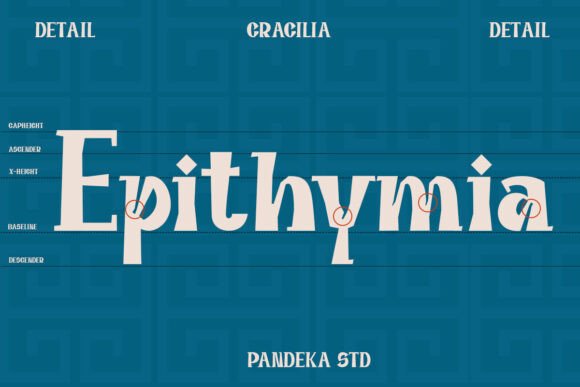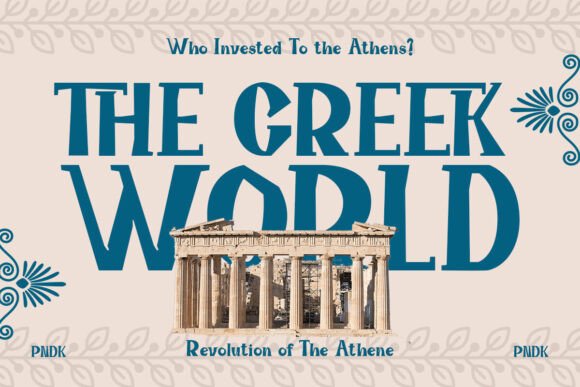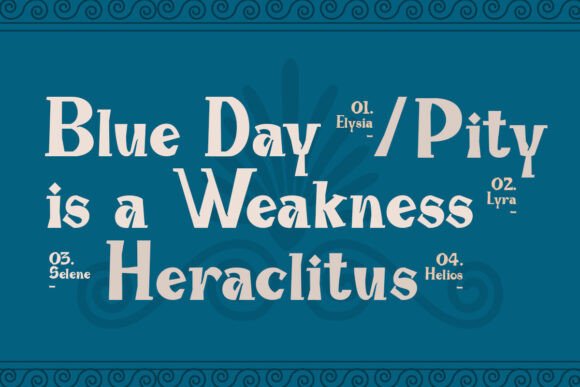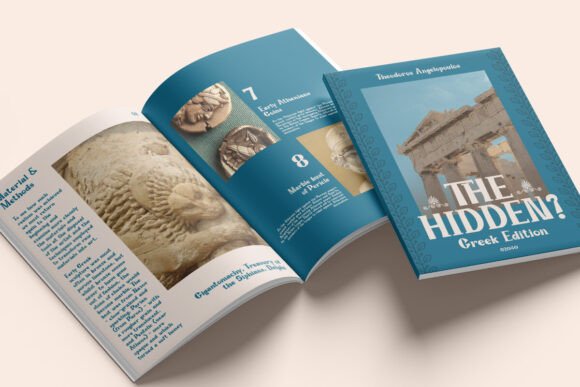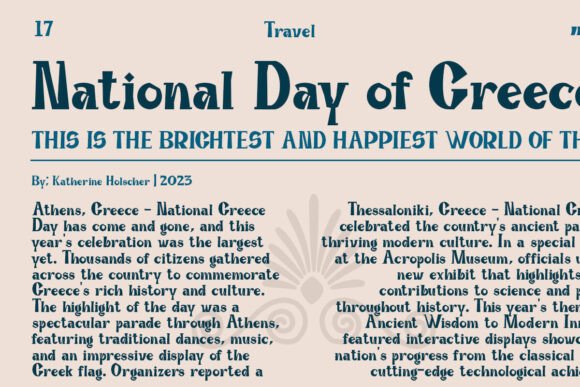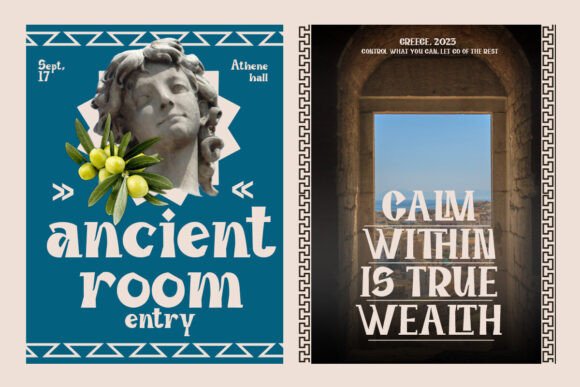
Introducing Gragilia – Ancient Greek Font Inspired by Timeless History
Are you a designer, craftsperson, or enthusiast looking for a font that embodies the essence of Ancient Greek culture? Look no further than Gragilia, a stunning typeface inspired by the grandeur and elegance of a bygone era. In this article, we’ll explore the world of Gragilia, an Ancient Greek font that brings a classic yet modern touch to your designs.
The Inspiration Behind Gragilia
Gragilia’s design is rooted in the rich history of Ancient Greece, a civilization renowned for its remarkable achievements in mythology, philosophy, art, and architecture. The font’s creator sought to capture the spirit of this timeless era, distilling its essence into a unique and captivating typeface. By studying ancient inscriptions, the designer aimed to recreate the elegance and strength that defined Ancient Greek culture.
Key Features of Gragilia Font
Gragilia boasts a single style, Regular, which offers a perfect balance of precision and character. This versatile font is suitable for a wide range of design projects, including:
- Book covers: Add a touch of classic sophistication to your book designs with Gragilia’s bold and timeless letterforms.
- Branding and logos: Create memorable and impactful logos that evoke the grandeur of Ancient Greece.
- Historical-themed designs: Bring the past to life with Gragilia’s authentic and evocative font, perfect for designs that require an air of antiquity.
What Makes Gragilia Stand Out
Gragilia’s unique blend of classic and modern elements sets it apart from other fonts. Its letterforms are meticulously crafted to evoke the feeling of ancient stone inscriptions, while still maintaining a clean and contemporary aesthetic. This font is ideal for designers seeking to:
- Create designs that honor the stories of the past while showcasing modern style.
- Add a touch of sophistication and elegance to their work.
- Develop distinctive and memorable brand identities.
Design and Craftsmanship
Gragilia’s design process involved meticulous research and attention to detail. The creator carefully studied ancient Greek inscriptions, analyzing the proportions, lines, and curves that defined this iconic style. By combining traditional techniques with modern typography, Gragilia was born – a font that not only pays homage to the past but also meets the demands of contemporary design.
Why Choose Gragilia?
When working on a design project, selecting the right font is crucial. Gragilia offers numerous benefits, including:
- Uniqueness: Stand out from the crowd with a font that boasts a distinct and captivating style.
- Versatility: Use Gragilia across various design projects, from book covers to branding and historical-themed designs.
- Timelessness: Create designs that transcend trends and remain relevant for years to come.
Tips for Using Gragilia Effectively
To get the most out of Gragilia, consider the following tips:
- Pair Gragilia with complementary fonts to create visual interest and hierarchy.
- Experiment with different sizes and colors to add depth and contrast to your designs.
- Pay attention to spacing and kerning to ensure optimal readability and aesthetics.
Gragilia is a remarkable font that brings the essence of Ancient Greek culture to your designs. With its elegant and strong letterforms, this font is perfect for designers and craftspersons seeking to create timeless and captivating works. Whether you’re working on book covers, branding, logos, or historical-themed designs, Gragilia is an excellent choice. Discover the world of Gragilia and unlock the secrets of Ancient Greece in your designs.